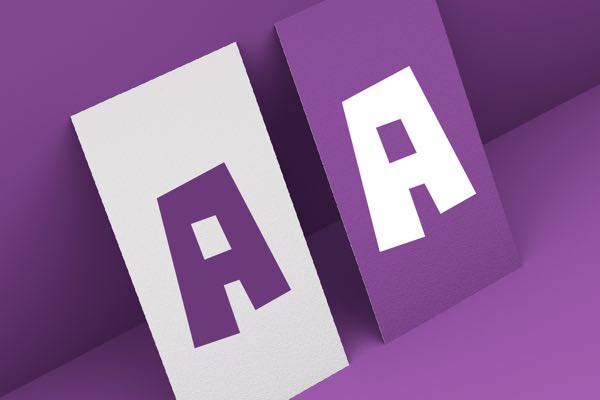
If you have a font collection of any size, you probably have many fonts for which you have multiple files. You might be confused about what to do with all those font files and how they differ from each other. How do you detect whether a font is the real deal, a doppelganger or a duplicate?
There are many ways that apparently similar fonts can differ from each other. It’s important to understand those differences so you can decide which fonts to use in your creative projects.
Start with the Right Tools
Fingerprint Conflicts
FontAgent performs fingerprinting procedures to verify whether two font files are identical. If they are, you only need to use one of them and you should archive or delete the other version. Unfortunately, getting your arms around all your fonts can be a bit more complicated.
Conflicting Family Names
On occasion, you might detect two fonts that look identical, but whose designers have assigned them different family names. When this occurs, you clearly have different fonts despite their similar appearance. To avoid confusion in applications and font managers, choose one of the fonts and archive the other.
Similar Font Names
Sometimes fonts appear to be the same, but their names are slightly different. Know that such fonts, like their names, are similar but are not identical. Here are a few examples:
- Univers is a popular typeface designed by Adrian Frutiger, while Universe is an imitation
- Futura BT is Bitstream’s version of Futura, while Futura PT is Paratype’s version of the font
- ITC Garamond was created by International Typeface Corporation, while Adobe Garamond is a similar font offered by Adobe Systems
In cases such as these, use the font from the more well-known vendor, or use the one you like better—or use both but know that they are similar but different fonts.
Varied Font Styles
When you have two font files with different style names, they are variations of the same font. Style names can include words such as Regular, Book, Roman, Italic, Slanted, Thin, Light, Bold, Heavy, Black, Compressed, Condensed, Narrow, Wide and Extended. By definition, while these fonts might have similar names, the fonts render differently. A quick check of the foundry and family names will confirm if you’re dealing with style variations from the same font family.
Distinct Fonts with the Same Name
Just because two or more fonts were given the same name by their designers doesn’t mean they are the same font. Such confusion can occur when an opportunistic designer creates an imitation version of a well-known font, or when two designers choose the same name for two completely different fonts.
When this happens, you can import both fonts into your font manager, but you must be aware that their matching names could confuse you or your applications downstream. Alternatively, you could use a font editor such as FontLab to edit the internal name of one of the fonts before importing it.
Differing Foundries or Designers
When you have two fonts that look the same, but whose foundry or designer names conflict, you’re dealing with different fonts despite their similarities. To avoid problems, the best practice is to use one of the fonts and archive the other one.
Multiple File Formats
When you have fonts in more than one file format, they may appear the same, but they are different fonts for a variety of reasons.
- The glyphs in PostScript Type 1 fonts contain different mathematical outline formulas than TrueType fonts for every character
- OpenType fonts can contain many more character glyphs than TrueType and Type 1 fonts
- Type 1 fonts include multiple files for each font
- Type 1 fonts are specific to Mac or Windows platforms
- Mac computers can use Mac and Windows TrueType fonts, but Windows computers can only use Windows TrueType fonts
OpenType is the newest and most detailed of today’s font format standards. It was preceded by the emergence of TrueType, which followed the original PostScript Type 1 standard. Therefore, if you have an OpenType version of a font, use it instead of the TrueType or Type 1 versions.
Also remember that while PostScript is a long-trusted font standard, Type 1 fonts are no longer supported by many applications, so it’s best to retire them and use OpenType or TrueType.
Modified Character Sets
Detecting differences in the character glyphs in font files can be challenging. If glyphs are modified by font publishers, they usually change the version numbers of the fonts at the same time.
Things get more confusing when someone has manually edited one or more of the glyphs in a font file. For example, they could add an icon to the font’s character set, replace a specific character, or adjust the height of an ascender or descender. When this occurs, a good font manager treats the font as new and unique. To detect a character change visually, use a good glyph viewer like the one in FontAgent.
Resolving Font Duplicates
By eliminating near-duplicates and imitations, you can add tremendous value to your font collection. More importantly, you lay the foundation for a clearer and more productive font management and creative workflow experience.